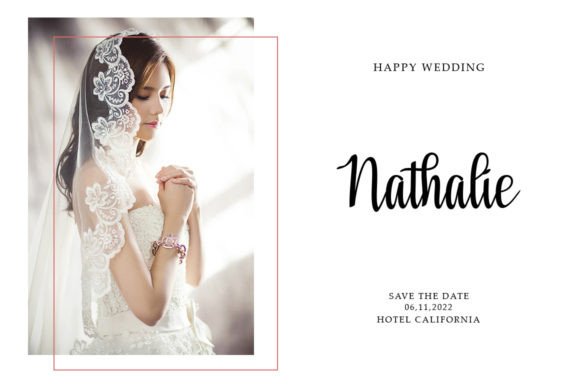
Regitha Font
Regitha Font – Elegant Handwritten Script Download
The Regitha Font download is a flowing handwritten typeface designed to bring elegance and timeless charm to any project. With its graceful curves and artistic details, this font adds sophistication while remaining approachable and versatile. Whether for personal or professional use, Regitha is a stylish option that ensures your work stands out beautifully.
Flowing and Elegant Design
The Regitha Font download captures the essence of handwritten artistry. Each stroke is designed with balance and harmony, creating a graceful rhythm that feels natural yet refined. Its flowing letterforms give designs a personal touch, making it ideal for projects that need elegance and warmth.
Perfect for Creative Projects
Versatility is one of the greatest strengths of the Regitha Font download. It is perfectly suited for wedding invitations, greeting cards, posters, product packaging, and social media graphics. Its timeless look ensures that your designs carry sophistication, whether they are digital or print-based. Creative professionals and hobbyists alike can rely on Regitha to elevate their work.
Timeless Handwritten Appeal
Handwritten fonts often stand out because they add authenticity to designs. The Regitha Font download offers exactly that while balancing style and readability. Unlike overly decorative fonts, Regitha remains clear and elegant, making it a reliable choice for everything from headlines to longer text passages.
Why Choose Regitha Font?
With countless handwritten fonts available, the Regitha Font download stands out thanks to its elegance, flowing design, and wide usability. Its timeless beauty ensures it works across different industries and project types. From luxury branding to personal DIY creations, Regitha adapts seamlessly while maintaining a distinctive look.
Add Elegance to Your Work
Typography is not just about letters—it is about style, personality, and connection. By choosing the Regitha Font download, you bring a flowing elegance and timeless character to your projects. Whether for personal crafts or professional branding, this font ensures your work leaves a lasting impression.